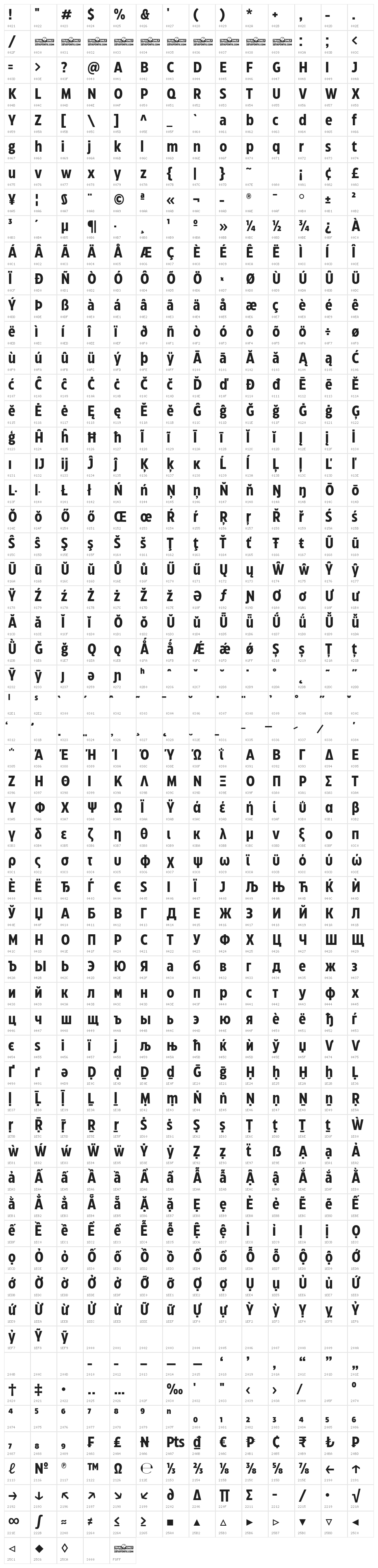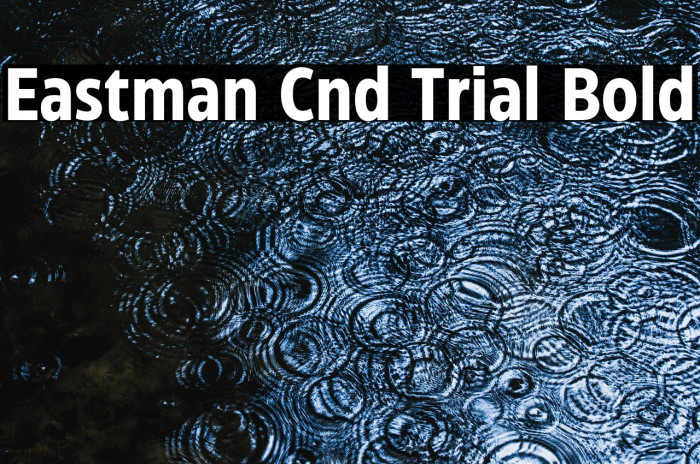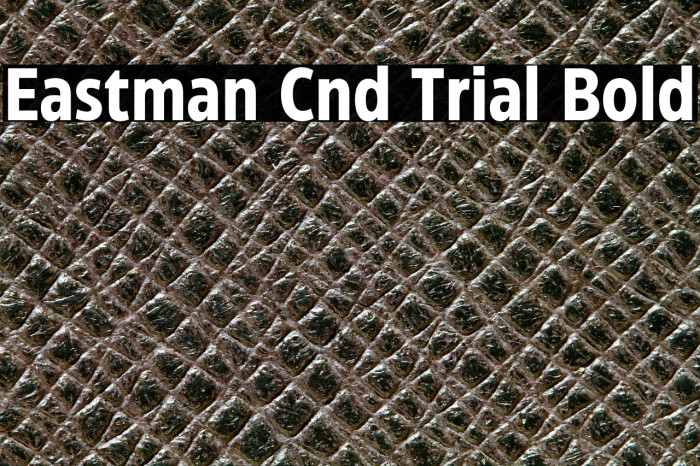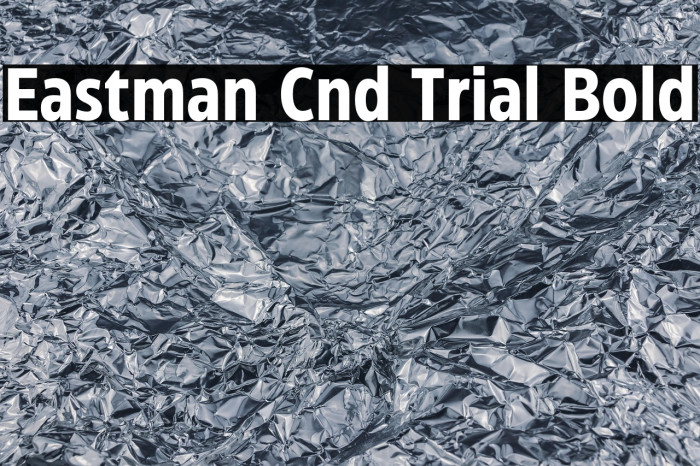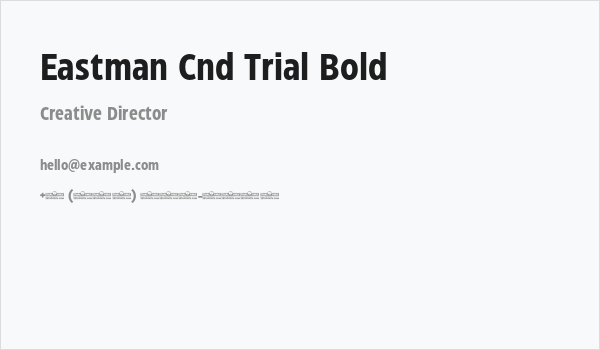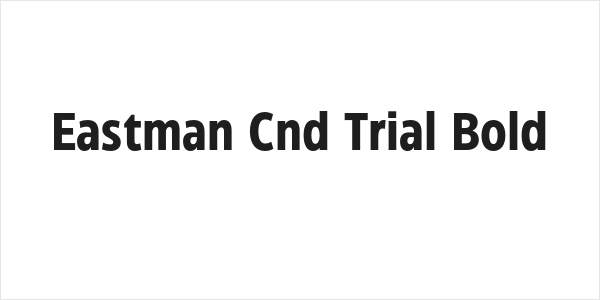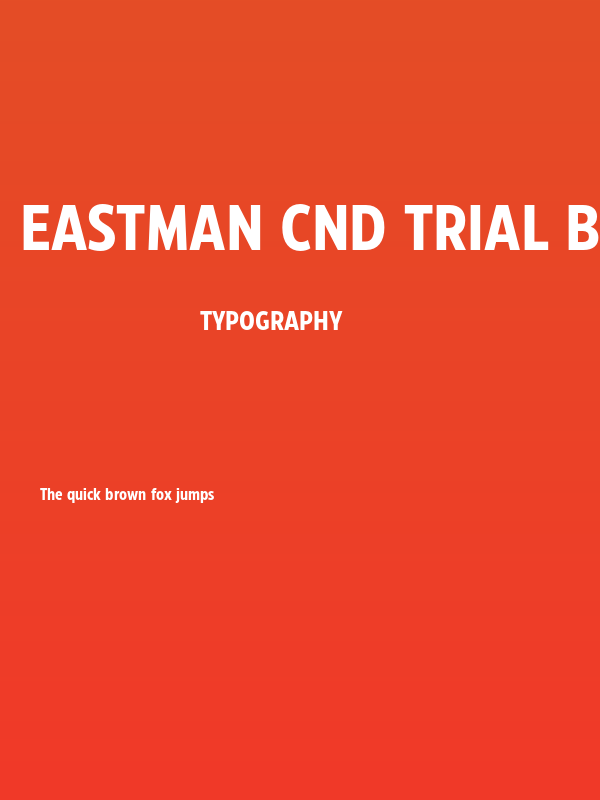
Eastman Cnd Trial Bold Font
Eastman Cnd Trial Bold Description
This font features a bold and condensed style, characterized by its strong and impactful presence. The uppercase and lowercase letters are designed with a uniform stroke width, providing a clean and modern look. The characters are tightly spaced, enhancing the condensed appearance. The font includes a full set of uppercase and lowercase letters, numbers, and a variety of special characters, making it versatile for various design needs. Its bold weight and condensed width make it ideal for headlines and attention-grabbing text.
| Proposed Projects | Ideal for headlines, posters, advertising, and branding projects where a strong visual impact is needed. |